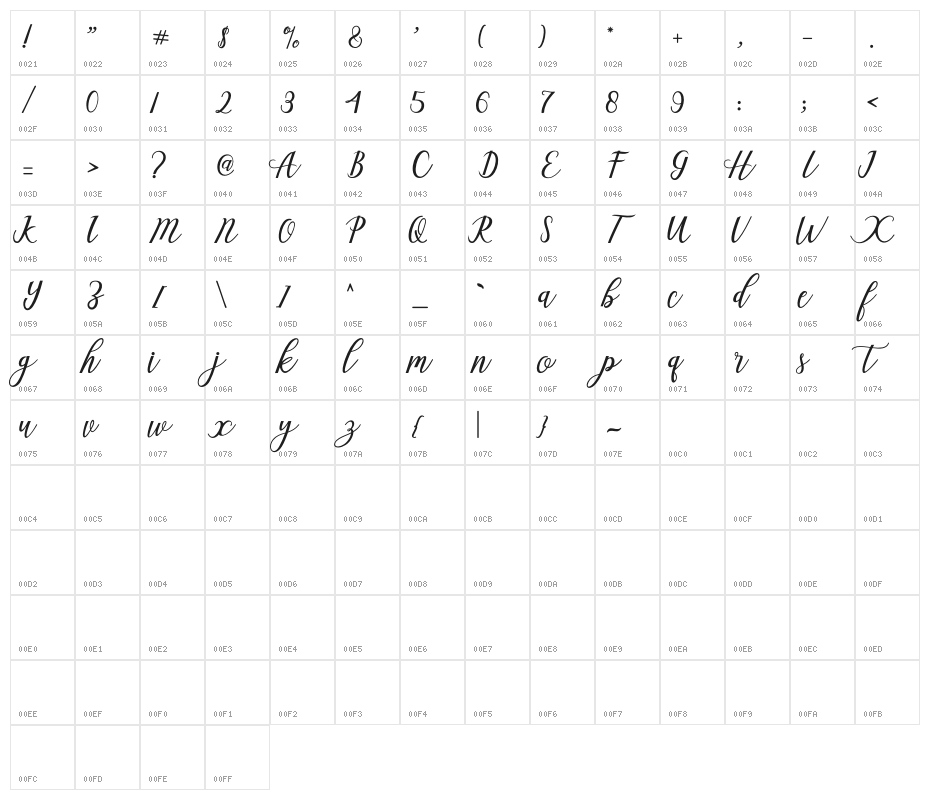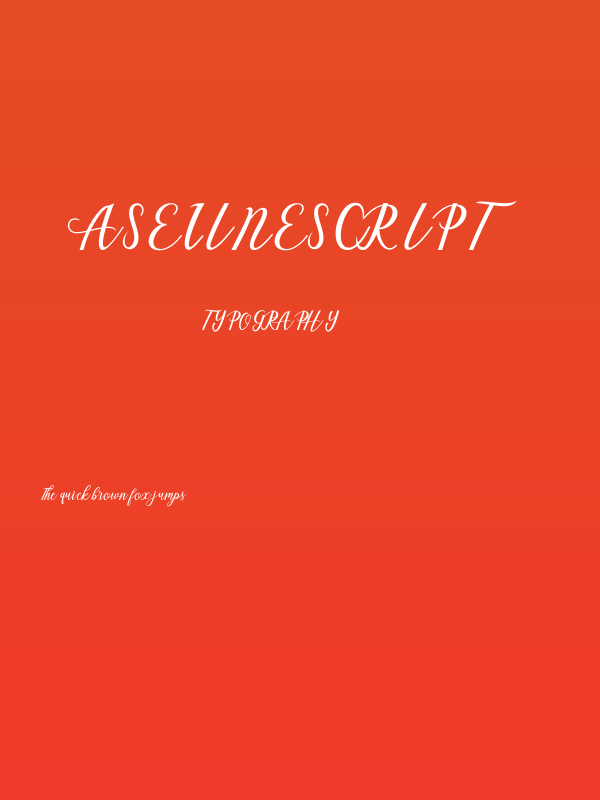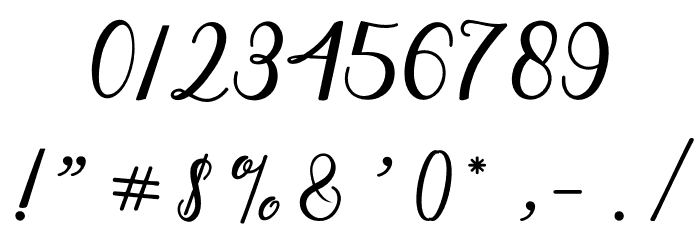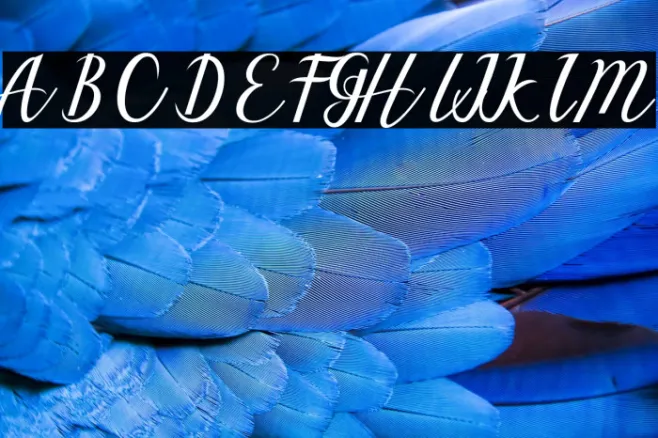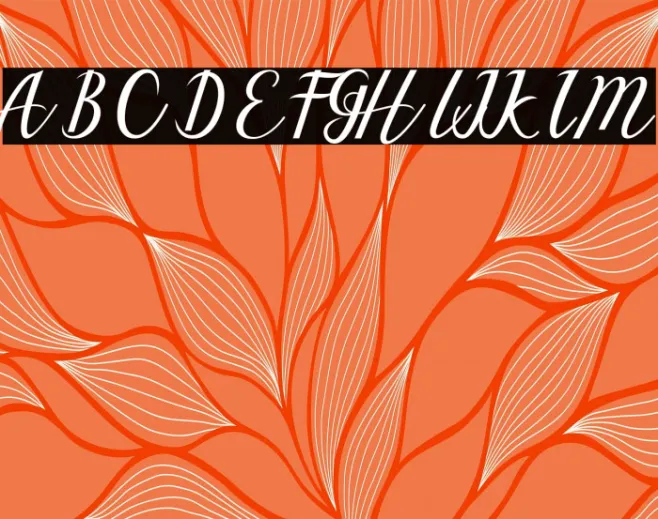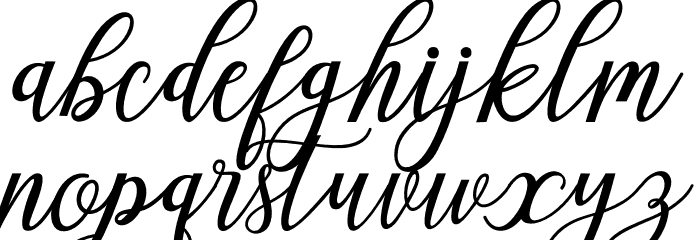
AselineScript Font
AselineScript Description
This elegant script font features fluid, cursive strokes that convey a sense of sophistication and grace. The uppercase letters are characterized by sweeping curves and flourishes, while the lowercase letters maintain a consistent flow with delicate loops and connections. The numerals are stylish yet readable, complementing the overall aesthetic. Special characters are thoughtfully designed to match the script's ornate style, making it suitable for decorative purposes. The font's high contrast between thick and thin strokes adds to its dramatic appeal, making it ideal for formal invitations, branding, and artistic projects.
| Use Case | Invitations, Branding, Decorative Headings |
| Proposed Projects | Ideal for wedding invitations, luxury branding, artistic projects, and decorative headings. |